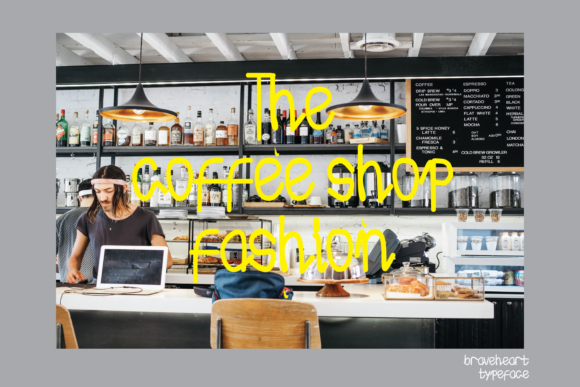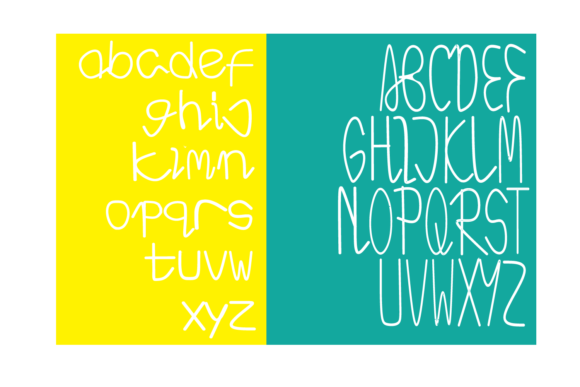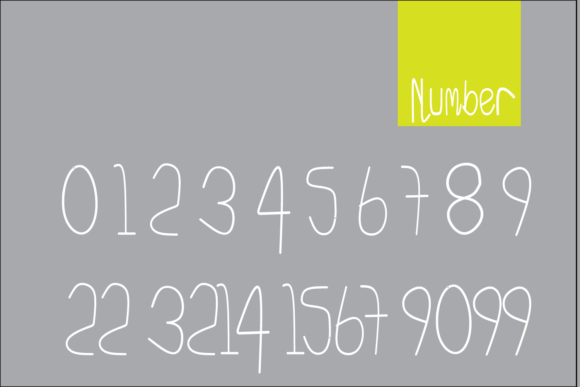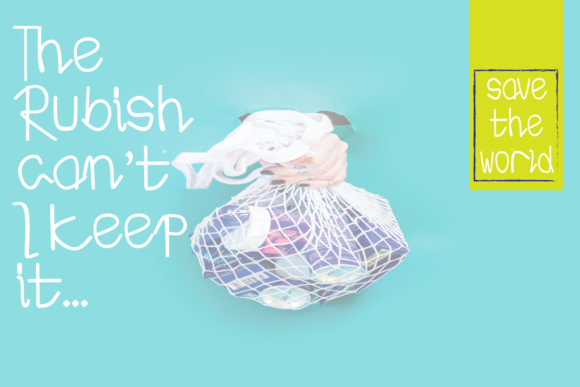
Braveheart Font: A Sweet and Friendly Handwritten Font for Your Designs
Braveheart is a beautiful, sweet, and friendly handwritten font that has captured the hearts of designers and crafters alike. Its natural and unique style makes it incredibly fitting for a large pool of designs, from personal projects to commercial endeavors. In this article, we’ll dive into the world of Braveheart Font, exploring its features, uses, and benefits, as well as provide tips on how to make the most of this stunning font.
What is Braveheart Font?
Braveheart Font is a handwritten font that exudes warmth, friendliness, and approachability. Its organic and flowing lines give it a personal touch, making it perfect for designs that require a human feel. The font’s unique style is characterized by its rounded edges, subtle imperfections, and varying line widths, which create a sense of movement and fluidity.
Features of Braveheart Font
- Handwritten style: Braveheart Font is a genuine handwritten font, crafted with love and care to replicate the natural flow of handwriting.
- Unique and distinctive: The font’s style is one-of-a-kind, making it stand out from more traditional fonts and adding a touch of personality to your designs.
- Natural and organic: Braveheart Font’s imperfections and subtle variations create a sense of authenticity and human touch.
- Highly versatile: The font is suitable for a wide range of designs, from digital projects to print materials, and can be used for both personal and commercial purposes.
Uses of Braveheart Font
Braveheart Font is an incredibly versatile font that can be used in various design projects, including:
- Branding and logos: The font’s friendly and approachable style makes it perfect for creating logos and brand identities that require a personal touch.
- Digital marketing materials: Braveheart Font can add a human touch to your digital marketing materials, such as social media graphics, email newsletters, and blog posts.
- Print materials: The font is suitable for print materials like brochures, flyers, posters, and business cards, where a personal and friendly tone is desired.
- Crafting and DIY projects: Braveheart Font is a great choice for crafters and DIY enthusiasts who want to add a personal touch to their projects, such as handmade cards, gift tags, and scrapbooking.
Benefits of Using Braveheart Font
Using Braveheart Font in your designs offers several benefits, including:
- Emotional connection: The font’s friendly and approachable style helps create an emotional connection with your audience, making your designs more relatable and engaging.
- Unique identity: Braveheart Font’s distinctive style helps your designs stand out from the crowd and establishes a unique identity for your brand or project.
- Time-saving: The font’s versatility and wide range of uses save you time and effort in finding the perfect font for your projects.
Tips for Using Braveheart Font
To make the most of Braveheart Font, follow these tips:
- Pair it with contrasting fonts: Combine Braveheart Font with contrasting fonts to create visual interest and hierarchy in your designs.
- Experiment with colors: The font’s natural style pairs well with a range of colors, so don’t be afraid to experiment and find the perfect color scheme for your design.
- Pay attention to spacing: Adjust the spacing between letters and words to create a natural flow and optimize readability.
Braveheart Font is a sweet and friendly handwritten font that can add a personal touch to your designs. Its unique style, versatility, and range of uses make it an excellent choice for designers and crafters alike. By understanding its features, uses, and benefits, and by following our tips, you can make the most of Braveheart Font and take your designs to the next level.